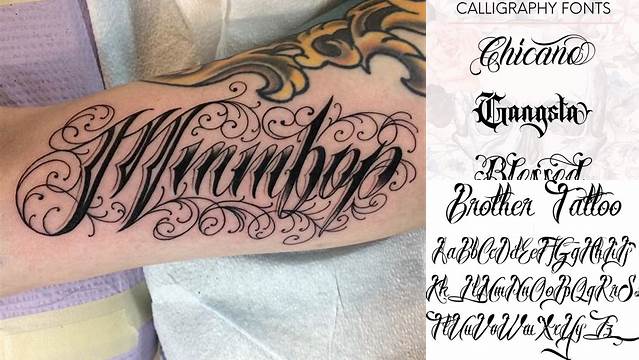
Font Letters Tattoo: Styles, Meanings, And Selection Tips
Choosing the perfect font for your tattoo can be a daunting task, guys. It's a decision that will stay with you for life, so you want to make sure it reflects your personality, style, and the meaning behind your ink. In this comprehensive guide, we'll delve into the world of font letters tattoos, exploring various styles, popular choices, and tips for selecting the ideal font for your next tattoo. We'll cover everything from classic scripts to modern designs, helping you navigate the vast landscape of typography and make an informed decision. So, grab a seat, relax, and let's dive in!
Understanding Font Styles for Tattoos
When it comes to font letters tattoos, the possibilities are endless. Understanding the different font styles is the first step toward finding the perfect match for your tattoo. Each style carries its own unique characteristics, evoking different moods and conveying distinct messages. Let's explore some of the most popular font styles you'll encounter.
Script Fonts: The Elegance of Handwritten Words
Script fonts, also known as cursive fonts, mimic the flow of handwriting. They're characterized by their elegant, flowing lines, making them a popular choice for tattoos. Script fonts are often associated with sophistication, grace, and a personal touch. They can range from delicate and feminine to bold and dramatic. Popular script font styles include:
- Classic Script: This timeless style features elegant curves and a traditional feel. It's perfect for names, quotes, and heartfelt messages. Imagine the classic script as a signature, instantly recognizable and filled with personal significance.
- Modern Script: A more contemporary take on script fonts, modern scripts often incorporate unique flourishes and stylistic variations. They can be more playful and expressive, allowing for greater creativity. Think of modern scripts as the cool, updated version of your grandma's elegant handwriting.
- Brush Script: Mimicking the look of a brushstroke, this style offers a bold and dynamic appearance. It's often used for impactful statements and artistic designs. Brush scripts bring a sense of spontaneity and artistic flair to your tattoo, like a splash of paint on a canvas.
Serif Fonts: Timeless and Traditional
Serif fonts are characterized by the small strokes, or serifs, at the end of each letter. They're often associated with tradition, stability, and formality. These fonts have been used for centuries in books and publications, lending a sense of authority and reliability. Common serif font styles include:
- Times New Roman: A classic and widely recognized serif font. It's a versatile choice that works well for various tattoo designs. It's like the dependable friend who's always there for you, solid and reliable in any situation.
- Garamond: Known for its elegant and refined appearance, Garamond is a popular choice for text-based tattoos. It's a great option if you're looking for something a bit more upscale. Garamond is like the sophisticated older sibling, always polished and effortlessly stylish.
- Bookman: A bolder serif font, Bookman offers a more pronounced presence. It's a good choice for tattoos that need to stand out. Bookman is the assertive one, making sure your message is loud and clear.
Sans-Serif Fonts: Clean and Modern
Sans-serif fonts lack the small strokes, or serifs, found in serif fonts. They're known for their clean, minimalist appearance, making them a favorite for modern designs. These fonts convey a sense of simplicity, clarity, and a contemporary aesthetic. Popular sans-serif font styles include:
- Arial: A widely used and easily readable sans-serif font. It's a versatile choice that works well for various tattoo designs. It's like the trusty companion, always reliable and easy to get along with.
- Helvetica: Known for its clean lines and neutral appearance, Helvetica is a classic choice for a modern look. It's the understated cool kid, effortlessly stylish without trying too hard.
- Futura: A geometric sans-serif font that's often used for bold and impactful designs. Futura brings a sense of futurism and modernity to your tattoo, like a glimpse into the future.
Other Font Styles: Exploring Diverse Options
Beyond the main categories, there are numerous other font styles to consider, each with its unique character and charm. These might include:
- Blackletter: Also known as Gothic script, this style is characterized by its ornate and calligraphic appearance. It's a bold and dramatic choice, often used for names, dates, or meaningful words. Imagine the Blackletter as a mysterious ancient text, filled with history and intrigue.
- Monospace: This style gives each letter the same width, creating a distinctive and often retro look. It's a great option if you want a technical or vintage feel. Monospace is the old-school computer geek, bringing a nostalgic touch to your tattoo.
- Display Fonts: These are designed for headlines and short phrases, often featuring unique and eye-catching designs. Display fonts are all about making a statement. They are the flashy ones, ensuring all eyes are on you.
Choosing the right font letters tattoo is a significant decision, but with careful consideration and planning, you can create a tattoo that you'll cherish for a lifetime. Consider the various font styles, the meaning and symbolism they convey, and the practical aspects of readability and placement. With these tips, you'll be well on your way to getting the perfect tattoo! Remember to choose a font that resonates with your personality, tells your story, and reflects your unique style. This is your tattoo, so make it truly yours. Happy inking, guys!